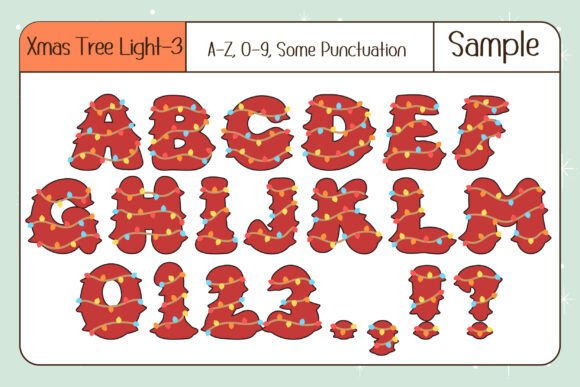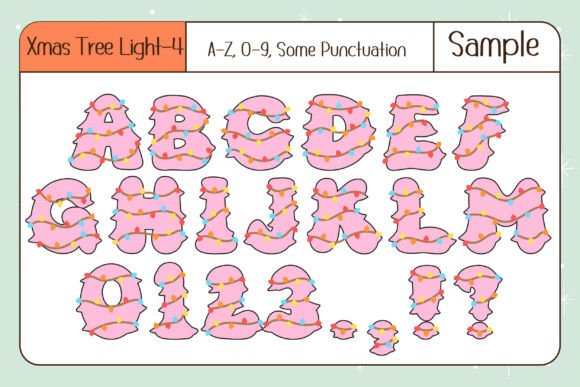
Introduction to Christmas Tree Light Font
Imagine you’re surrounded by the twinkling lights of a beautifully decorated Christmas tree. The soft glow, the festive atmosphere, and the joy of the season all come together in a magical moment that inspires creativity. As a designer, you know that sometimes it’s these moments that spark the most innovative ideas. And that’s exactly what we’ve captured with the “Christmas Tree Light Font” – a delightful color font that embodies the spirit of the season.
This cheerful design resource is more than just a pretty font; it’s a high-quality tool that’s perfect for adding a warm and festive touch to your creative projects. With its transparent background and easy-to-use design, the “Christmas Tree Light Font” is ideal for designers looking for a fun and versatile resource to elevate their holiday designs.
Key Features of Christmas Tree Light Font
- Unique characteristics: Distinctive Christmas tree-inspired design, ideal for holiday-themed projects
Honest Review: Christmas Tree Light Font
I recently had the chance to work with the Christmas Tree Light Font, and I’m excited to share my honest review. This font is a fantastic resource for any creative project that needs a touch of festive magic.
- High quality design: The font is crisp, clear, and well-crafted, making it perfect for print or digital applications.
- Transparent background: This feature is a game-changer for designers, allowing for seamless integration with other design elements.
- Limited character set: While the font is perfect for Christmas-themed projects, its character set is limited, making it less versatile for other designs.
- No bold or italic styles: The font is only available in regular style, which can be a limitation for designers who need more variety.
Overall, the Christmas Tree Light Font is a great resource for designers looking to add a touch of festive flair to their projects. While it has some limitations, its high quality design and transparent background make it a valuable addition to any design library.
How to Use Christmas Tree Light Font
The Christmas Tree Light Font is a unique and creative design resource that can add a festive touch to your projects. With a transparent background, it’s perfect for overlaying on images or using as a standalone element.
Getting the Most Out of It
For the best results, use the Christmas Tree Light Font in high-quality designs. Experiment with different colors and combinations to create a unique look.
The Christmas Tree Light Font is perfect for:
- Holiday greeting cards.
- Christmas party invitations.
- Winter-themed social media posts.
Alternatives to Christmas Tree Light Font
The Winter Wonderland Font is a beautiful and elegant font perfect for designing holiday-themed materials, such as Christmas cards, gift tags, and invitations. It features a transparent background, making it ideal for use on a white or light-colored background. This font is a great alternative to Christmas Tree Light Font for designers who want to add a touch of sophistication to their creative project.
When to use: Holiday cards, gift tags, invitations
Comparison: While Christmas Tree Light Font has a more playful feel, Winter Wonderland Font is more elegant and refined, making it suitable for formal holiday designs.
Festive Lights Font
The Festive Lights Font is a fun and whimsical font that’s perfect for adding a touch of magic to holiday designs. It features a high-quality design and is available for free download, making it an excellent resource for designers on a budget. This font is ideal for use on a transparent background, allowing the design to shine.
Q: Can I modify the Christmas Tree Light Font to fit my specific design needs, and what editing tools are recommended?